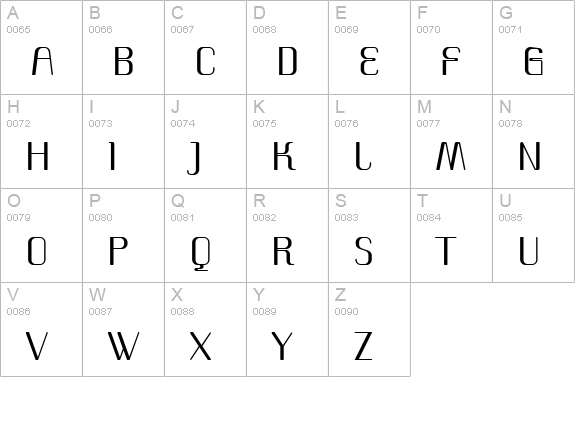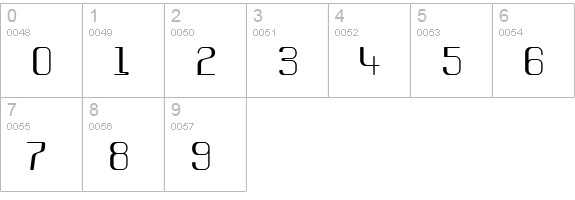
RomeroRegular Font Details
RomeroRegular is a sophisticated and versatile font that exudes elegance and style. With its clean lines and timeless appeal, this font is perfect for a wide range of design projects, from branding to editorial design. Its classic yet modern look makes it suitable for both professional and creative applications. What makes RomeroRegular even more appealing is that it is available for free download at FontsMarket.com. This means that you can easily access this high-quality font and use it in your projects without any cost. Whether you are a designer, a student, or a business owner looking to enhance your brand identity, RomeroRegular is a fantastic choice that won't break the bank. Don't miss out on the opportunity to elevate your designs with the elegance and sophistication of RomeroRegular. Download it for free today at FontsMarket.com and start creating stunning visuals that stand out from the crowd.